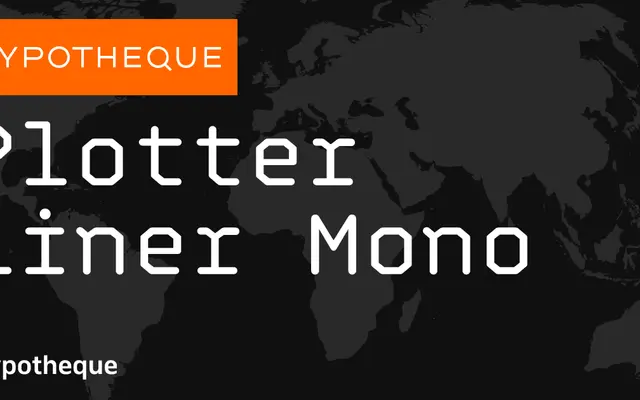
Plotter Liner Mono
A monospaced typeface derived from single-stroke plotter lettering, forming part of a larger system that includes stencil, display and proportional variants.
Part of Typotheque's Plotter Liner system, this monospaced cut draws on the conventions of mechanical plotter lettering, where characters are constructed from single continuous strokes. The family spans four subfamilies including stencil cuts and a layered display variant with separate components for colour and depth effects. City-named weights — Amsterdam, Bengaluru, Copenhagen, Damascus — suggest cultural breadth in the Latin glyph coverage.
Monospaced variant within the Plotter Liner system, a family rooted in single-stroke plotter lettering traditions. The stencil and display subfamilies reinforce its technical, engineering-derived character.